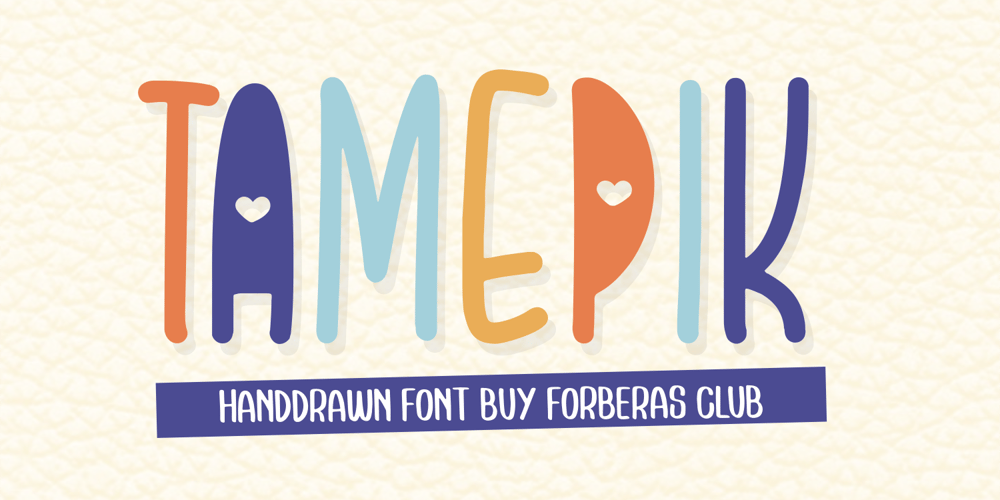
Tamepik Font Family was designed by ANGGI HERMAWAN and published by Forberas Club. Tamepik contains 1 styles and family package options. Tamepik made for something interesting and excited. You can use this font for your party, love story or cute moment.